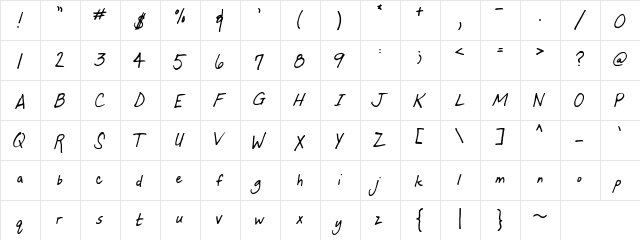
Design Context for funfont Typeface
funfont has an approachable, lighthearted character — its loose, expressive forms are well-suited to children's content, casual branding, and fun-first design.
Font Pairing: Pairs well with a rounded or humanist sans for body copy, maintaining the friendly tone without relying on funfont to carry extended reading.
Pro Tip: Avoid using funfont for long passages of text — it works best for headlines, labels, and short calls to action.